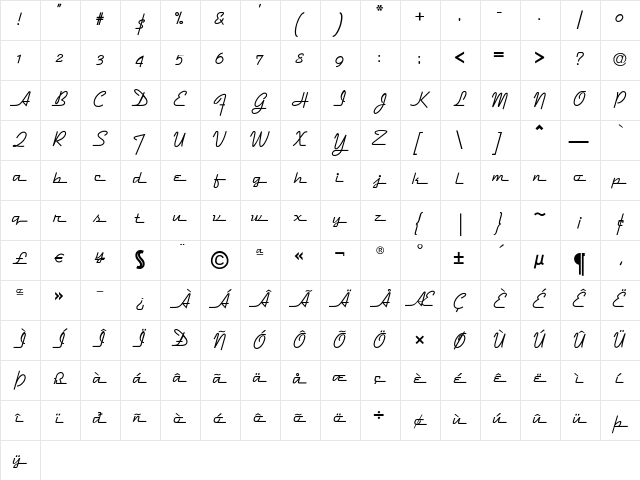
DymaxionScript Regular
Design Context for DymaxionScript Typeface
DymaxionScript flows with the natural rhythm of handwritten lettering, making it ideal for designs that call for warmth and personal expression.
Font Pairing: Combine DymaxionScript with a simple geometric sans for maximum contrast — the tension between flowing curves and clean structure is a classic typographic pairing.
Pro Tip: Use DymaxionScript for short runs of text — names, titles, or taglines. Extended body copy in script faces tires the eye quickly.